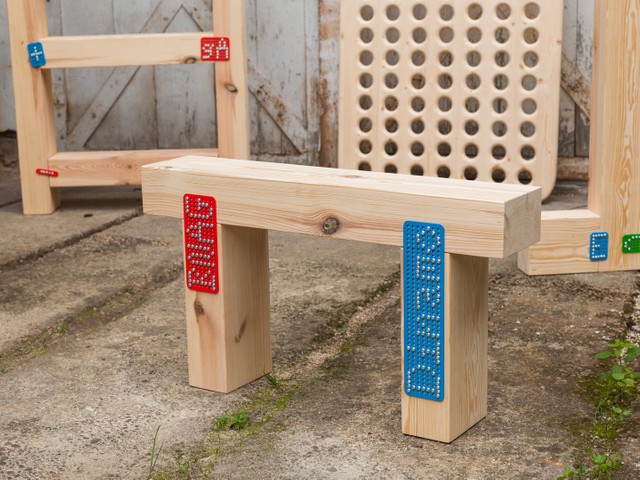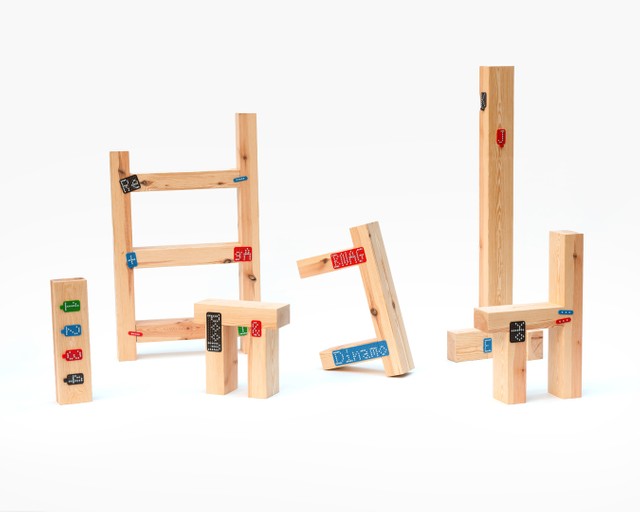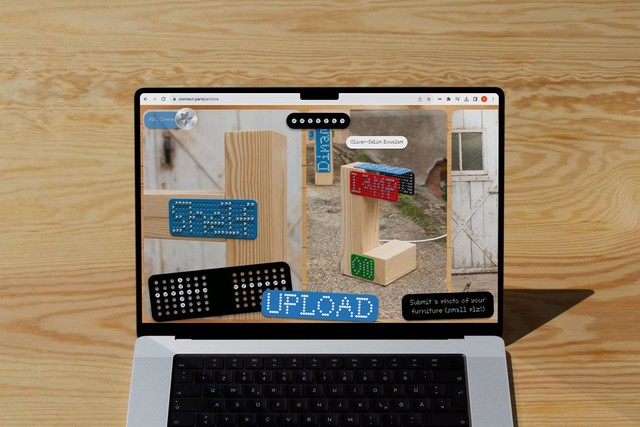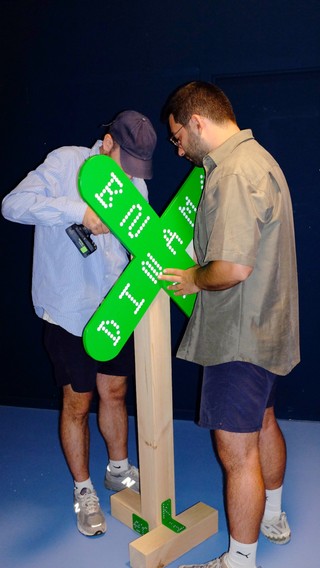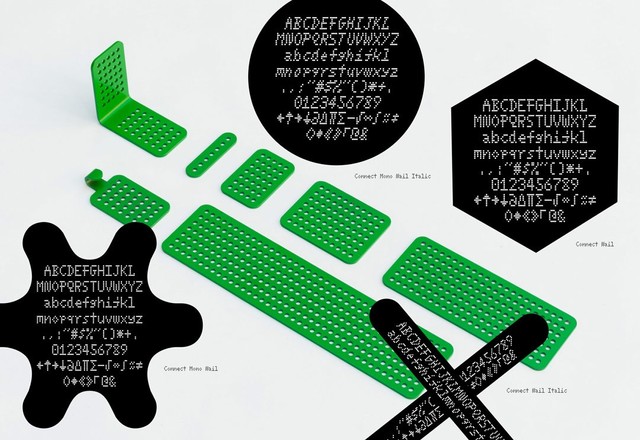
Creating lettershapes with screws 🛠 —
We connected (🤭🙄) with our friends at BNAG studio to create a digital dot font and accompanying set of metal brackets, which let users create lettershapes with screws.
Let me explain. These easy-to-use brackets join together various parts of any object with screws for quick, resilient DIY furniture making. Inspired by BNAG’s own spontaneous approach, they encourage flexible and personal designs that celebrate (rather than disguise) how an object is constructed.
Each dot in our dot font corresponds to the matrix of the metal bracket grids 🤯🧩
Dotted Opportunities
Metal screw heads meet digital fonts
Use the brackets to create your own furniture...
... and follow our dot font as a guide. Or just use the typeface for your projects! 🤯
The ABC C-o-n-n-e-c-t-o-r-s join bits of wood together beautifully and simply.
ABC C-o-n-n-e-c-t is dot font available in five screw head styles as well as Mono and Italic.
Grids sans nails
This project is a many-wooden-legged-monster, with its accompanying web tool, Dinamo Editions zine, and wood workshop. Scroll on for more info — including photos of our launch at HKW Berlin 🛠👷🏼‍♀️🛠
The Brackets
Stable, resilient, and easy to use, these metal brackets are designed to make furniture design more spontaneous and accessible.
Not that Bauhaus, Karlsruhe
Oli and Lukas of BNAG came up with the idea while standing in the aisle of Germany’s home improvement retail chain, Bauhaus. It occurred to them that store’s free wood cutting service outsources production in the cheapest, quickest way: Customers can simply buy wood, a package of screws, a connecting bracket, and quickly assemble an item together, paying only for material costs.
Our C-o-n-n-e-c-t-o-r-s invite Y-O-U to decorate quick, simple connections with lettershapes. Have F-U-N!
The Typeface
Regular
Italic
Mono
Mono Italic
ABC C-o-n-n-e-c-t is a digital dot font based on the ABC C-o-n-n-e-c-t-o-r grid. It contains monospaced and proportional styles, all with corresponding Italics, making it (probably) the world’s first Italic dot font (but don’t drill us on that one).
ABC C-o-n-n-e-c-t comes in five common screw head styles, including Flat, Torx, Hex, Nail, and Philips. Designed by Fabian Harb with Louis Brousseaud and Frédéric Jaman <3
Screw head styles irl
Not so easy making an Italic in this grid 🥵
The Zine
C-O-N-N-E-C-T: A Blueprint for Collaboration is an instruction-manual-meets-type-specimen-meets-philsophical-handbook; it contains instructions for possible furniture designs made using the grid of our font, as well as “blueprints” for creating letterforms with screws.
Published by Dinamo Editions
An essay by technology journalist and author James Vincent, whose 2022 book Beyond Measure was a New Yorker, Times, and Economist “Book of the Year,” offers a prosaic perspective on what physical nearness means in our networked times. Edited by Maddy with design by Sascia, Mathias, and Tina, and Holz the Woodworm comic by Pete Sharp. 42 pages.
Our web tool or “ web workbench” lets makers instantaneously share and upload images of their ABC C-o-n-n-e-c-t-o-r-s creations to our community portal with the click of a button. Catch the loose screw 🤭 to change typeface styles. Developed by Marco Land with design by Tina Lehmkuhl.
Launch @ HKW
Seeing how people use the tools we create, whether fonts or physical hardware like these brackets, is endlessly exciting to us. And we can't wait to see where this projects grows next. Below are a few shots by Sascia and Oli of our wood workshop in action.